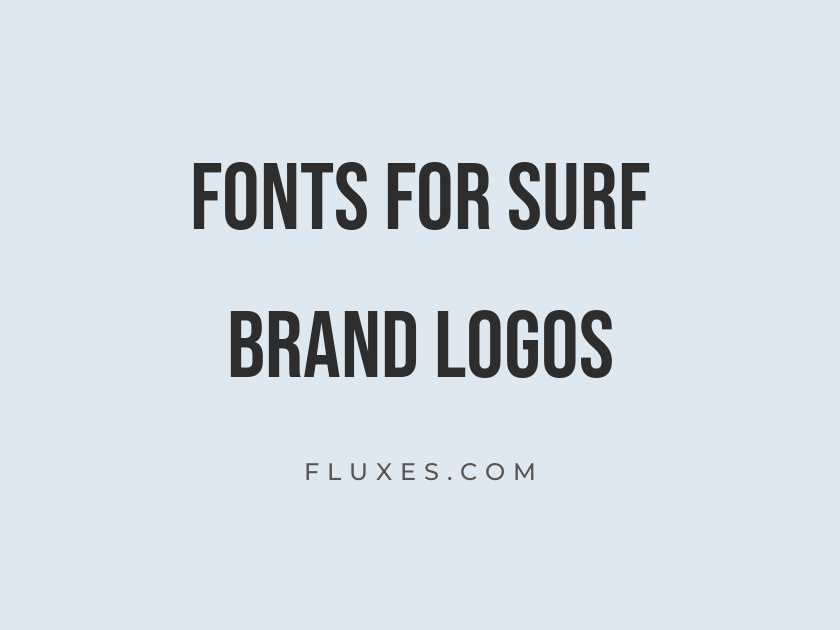
68 Best Fonts for Surf Brand Logos
Surf branding lives at the intersection of raw, sun-bleached texture and effortless cool, and the right typeface can telegraph that whole world before a customer reads a single word. Whether you are naming a longboard shaping bay, a wetsuit label, or a beach-town coffee truck that just happens to sell wax and leashes, the font choice signals decades in seconds: 1960s tiki cool, 1970s van-life groove, gritty skate-shop attitude, or a stripped-back modern minimalism built for Instagram. Because every option here is free on Google Fonts, you can test full logo concepts and download the files without a licensing headache.
What follows moves from clean condensed sans display faces suited to modern surfwear marks, through bubbly rounded letterforms and retro script, into hand-lettered, grunge, and tiki-flavored display type built for board graphics and vintage-inspired badges.
1. Bebas Neue
Ride the barrel at dawn patrol
Tall, condensed, and all caps, this is the workhorse of modern surf and streetwear branding. It reads instantly on a hangtag, a wetsuit chest logo, or a billboard, which is exactly why so many surf labels lean on it for their primary wordmark.
2. Anton
Heavy swell hitting the point break
Anton pushes even heavier than Bebas Neue, with letterforms so dense they feel poured rather than drawn. It suits brands chasing a bold, no-nonsense surf-hardware look, like fin companies or board-repair shops.
3. Archivo Black
Salt water, sunburn, no regrets
A sturdy grotesque with almost no personality quirks, which is precisely its value: it lets a logo mark or wave icon carry the character while the type stays out of the way.
4. Oswald
Northshore swell forecast looks epic
Oswald condenses classic newspaper-headline proportions into something clean enough for a minimalist surf brand, yet it still has enough weight in bold to anchor a logo lockup.
5. Staatliches
Vintage surf club, established coastline
Staatliches has a stamped, stenciled quality that works well on badge-style surf club emblems, especially paired with a circular border and a wave motif.
6. Fjalla One
Clean lines, cold water, early tide
Understated and slightly narrow, Fjalla One is a dependable choice when a surf brand wants a Scandinavian-leaning, stripped-down aesthetic rather than a beachy one.
7. Teko
Fast rails, loose tail, high line
Teko’s tall, technical proportions borrow from athletic and motorsport type, making it a smart fit for performance-focused surf gear and wetsuit tech branding.
8. Alfa Slab One
Board wax, leash, fin key
This heavy slab serif has a stamped, printer’s-block feel that reads like vintage cargo crate lettering, giving it real charm on retro surf shop signage.
9. Titan One
Big waves, bigger smiles today
Rounded and inflated at the edges, Titan One brings a cartoonish energy suited to youth surf camps, kids’ boardshorts lines, or anything wanting a friendly, bubblegum tone.
10. Bungee
Downtown surf shop, open daily
Bungee was built for urban signage, and its blocky, slightly playful caps translate surprisingly well to skate-adjacent surf brands that want a street edge rather than a beachy one.
11. Bungee Inline
Neon boardwalk, open all night
The inline cut of Bungee adds a hollow, sign-painted look that suits a boardwalk arcade or a surf shop leaning into retro Americana graphics.
12. Bungee Shade
Sunset session, long shadows fall
Built-in drop shadow gives this variant instant dimension, useful for a bold hero logo lockup that needs to pop off a busy beach photo background.
13. Bungee Outline
Ride till the sun goes down
Bungee Outline
A lighter-footprint cousin of the family, the outline cut works nicely stacked over a solid wordmark for a layered, poster-style surf graphic.
14. Bungee Spice
Tropical heat, endless summer glow
Bungee Spice
This color variant bakes a gradient right into the letterforms, so it earns its keep sparingly, on a hero graphic or a limited drop rather than a full brand system.
15. Luckiest Guy
Gnarly waves, no wipeouts today
Thick, bouncy, and cartoon-inflected, Luckiest Guy channels the comic-strip energy of 1960s surf culture and old Endless Summer poster lettering.
16. Bangers
Cowabunga, dude, catch that wave
Loud and slightly chaotic in the best way, Bangers suits a novelty surf brand or a beach snack shack that wants to feel like a comic book cover.
17. Boogaloo
Groovy tide, retro board shop
Boogaloo has genuine 1970s groove built into its curves, making it a natural fit for van-life surf brands or anything chasing a mellow, sun-faded vintage mood.
18. Fredoka
Fresh wax, warm sand, easy days
Soft and rounded without tipping into childish, Fredoka gives a modern, friendly surf shop or beach cafe brand a bit of approachable warmth.
19. Baloo 2
Family surf lessons every Saturday
Baloo 2 is chunky and welcoming, a good pick for a surf school or family-owned rental shack that wants type as friendly as its staff.
When in doubt, test the wordmark small, on a phone screen and on a hangtag mockup, before locking in a final choice. What looks great in a hero banner does not always survive a business card.
There is enough range here, from stark modern condensed sans to full-blown 1970s psychedelic display, to build a distinct surf identity without touching a single paid font file. Download a handful, set them side by side against your board or apparel mockups, and let the wave do the rest of the talking.